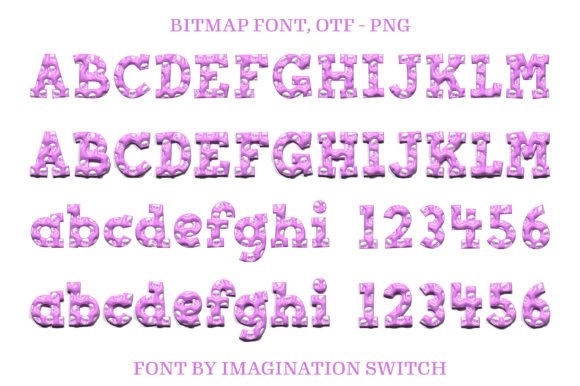
Introduction to Pink Skull 3d Font
As designers, we’ve all been there – staring at a blank canvas, trying to come up with the perfect design for our next creative project. Sometimes, all it takes is a spark of inspiration to get those creative juices flowing. For me, it was discovering the Pink Skull 3d Font – a typographic masterpiece that brought a whole new level of dimension and vitality to my designs.
This color font is more than just a pretty face; it’s a valuable design resource that can elevate any project from bland to grand. With its clever use of 3D design and transparent background, the Pink Skull 3d Font creates an illusion of depth that’s simply mesmerizing. And the best part? It’s available for free download, so you can get creative without breaking the bank.
Key Features of Pink Skull 3d Font
- Pink Skull 3d Font is a high-quality design resource ideal for creative projects requiring a bold and edgy touch.
- This 3D font features a transparent background, allowing for easy integration into any design without a distracting background.
- The Pink Skull 3d Font is a unique and eye-catching design element that can add a touch of creativity to any project.
Honest Review: Pink Skull 3d Font
I recently stumbled upon the Pink Skull 3d Font, a design resource that caught my attention for its unique aesthetic. As a designer, I appreciate fonts that can add a creative touch to a project, and this one certainly delivers.
- ✨ The font’s 3D effect gives it a distinctive look that’s perfect for adding depth to a design.
- ✨ The high-quality design ensures that the font looks great on various backgrounds.
- ⚠️ The font only comes in a single style, which may limit its versatility.
- ⚠️ The transparent background option can sometimes result in a faint outline, which may not be desirable for all designs.
Overall, I’m impressed with the Pink Skull 3d Font’s unique design and high-quality execution. While it may have some limitations, it’s a great addition to any designer’s toolkit, especially for creative projects that require a bold and eye-catching font.
Pink Skull 3d Font is commonly used in designs for parties, events, and social media. It can also be used in logos, branding, and marketing materials to add a touch of creativity and whimsy.